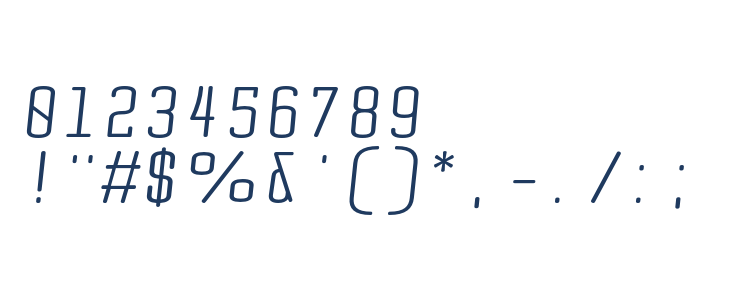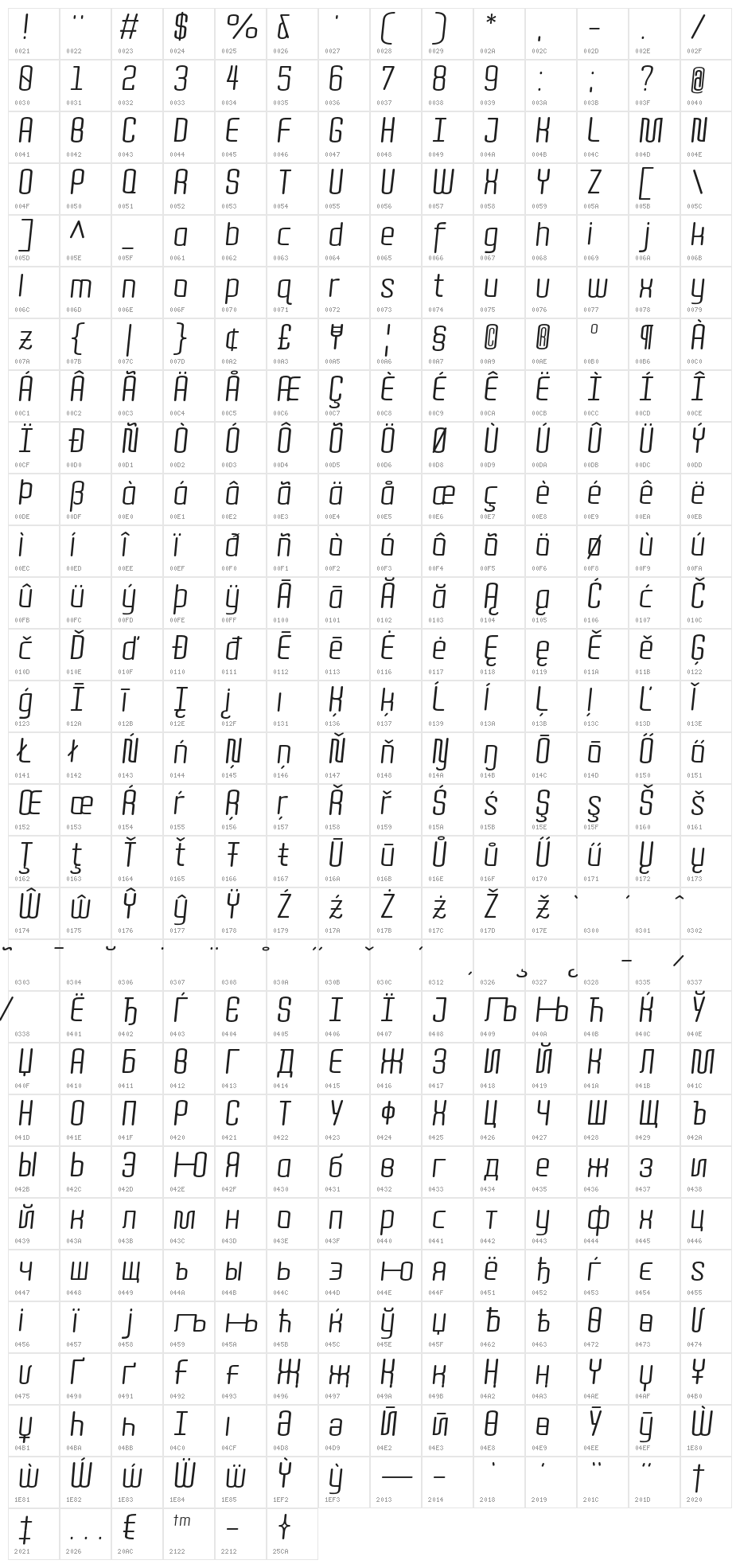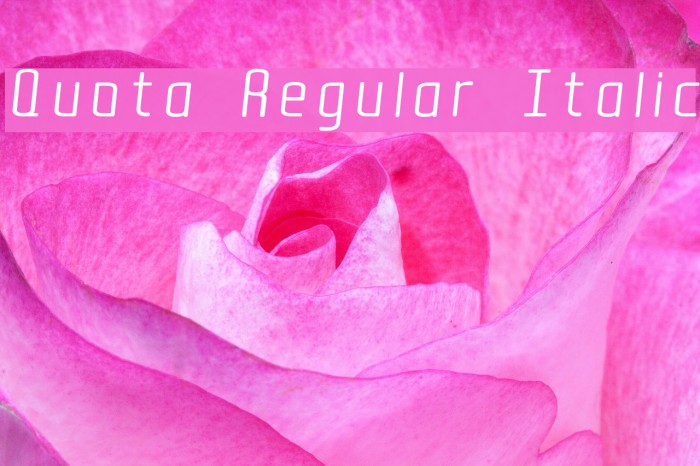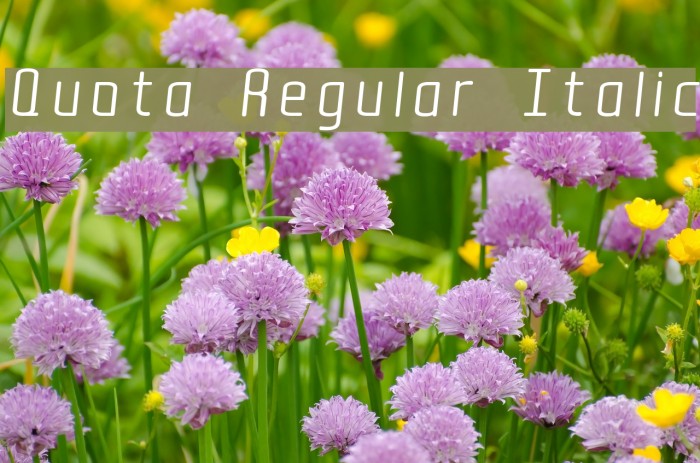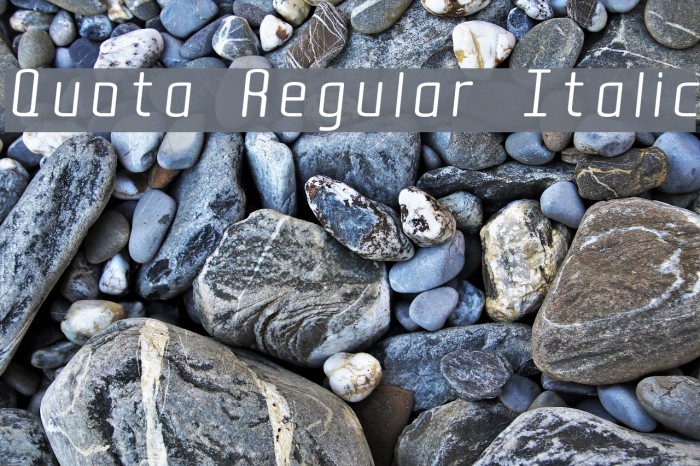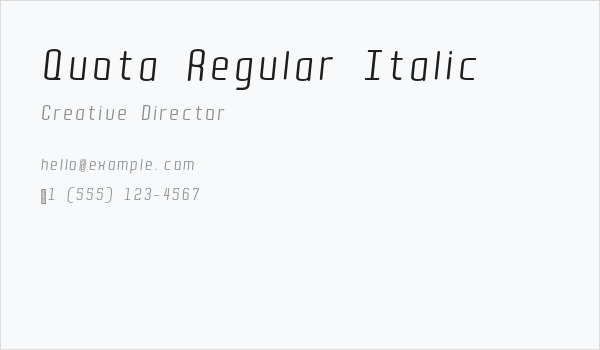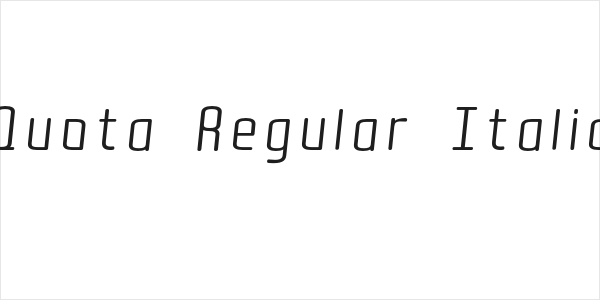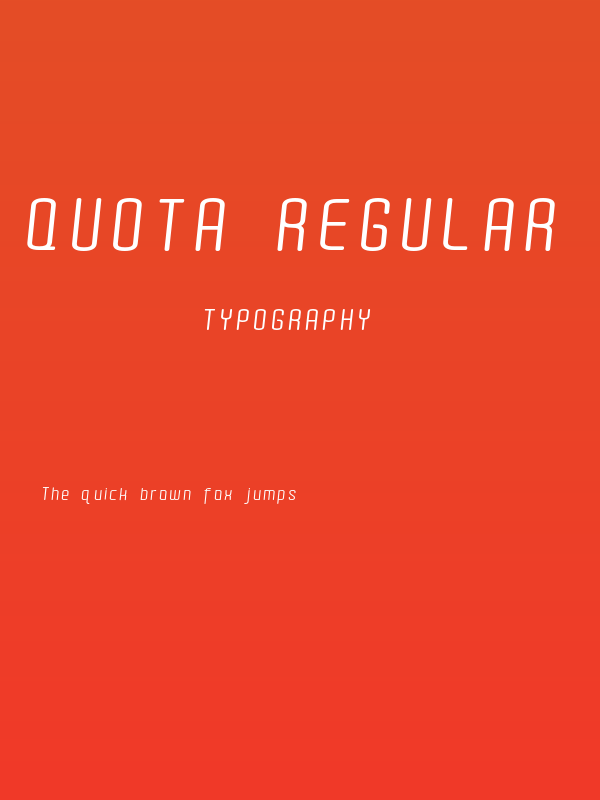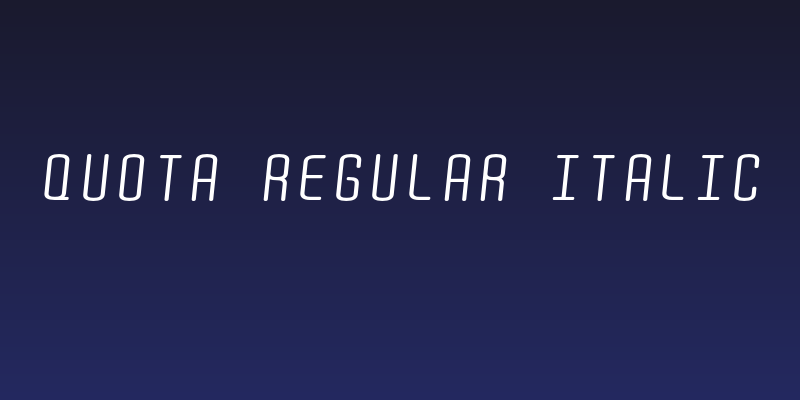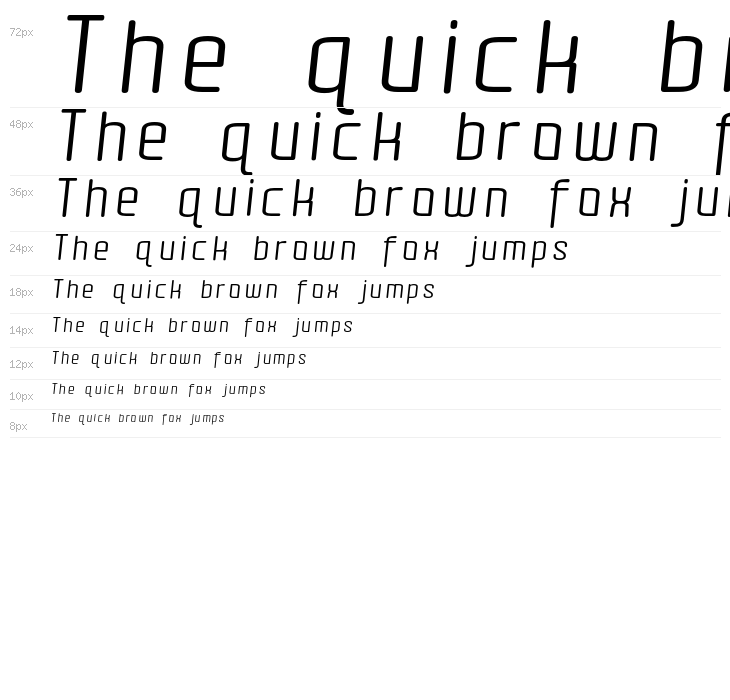
Quota Regular Italic Font
Quota Regular Italic Description
This font features a sleek, modern design with a slightly italicized style, giving it a dynamic and forward-leaning appearance. The characters are uniform in width, contributing to a clean and organized look. The rounded edges and consistent stroke thickness provide a sense of approachability and friendliness. The font maintains a balanced contrast, ensuring readability while retaining its contemporary aesthetic. Its geometric structure is evident in the uniformity of the letterforms, making it suitable for a variety of design applications.
| Use Case | Headlines, Logos, Digital interfaces |
| Proposed Projects | Ideal for tech branding, modern advertising, digital interfaces, and innovative product packaging. |